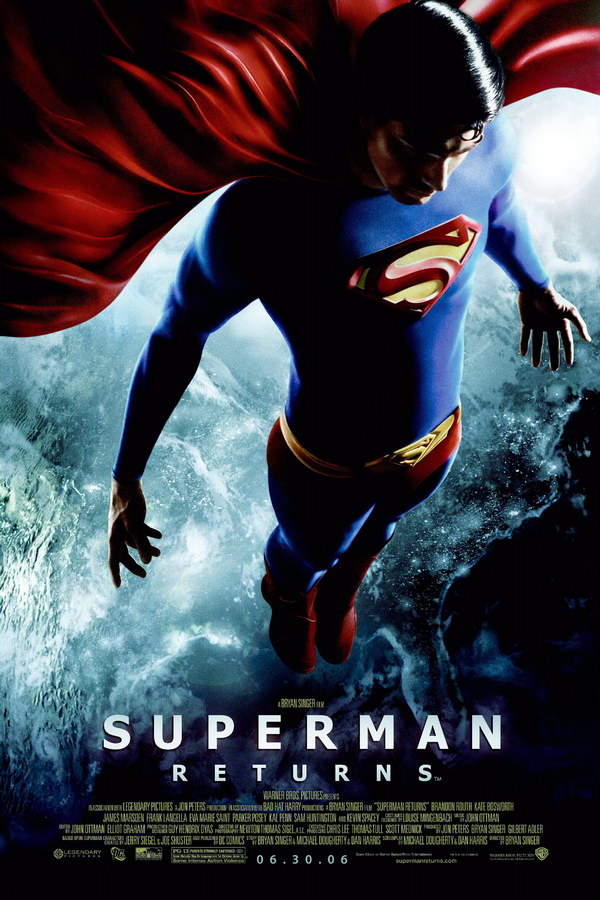
Superman Returns Font
FantasySuperman Returns is a 2006 superhero film directed by Bryan Singer. The movie follows the story of Superman as he returns to Earth after a long absence, only to discover that his arch-nemesis Lex Luthor has a new plan to destroy the world.
The font used for the "Superman Returns" title on the poster appears to be Tahoma Bold, a humanist sans serif created by Matthew Carter for Microsoft. You can find more details about it here.